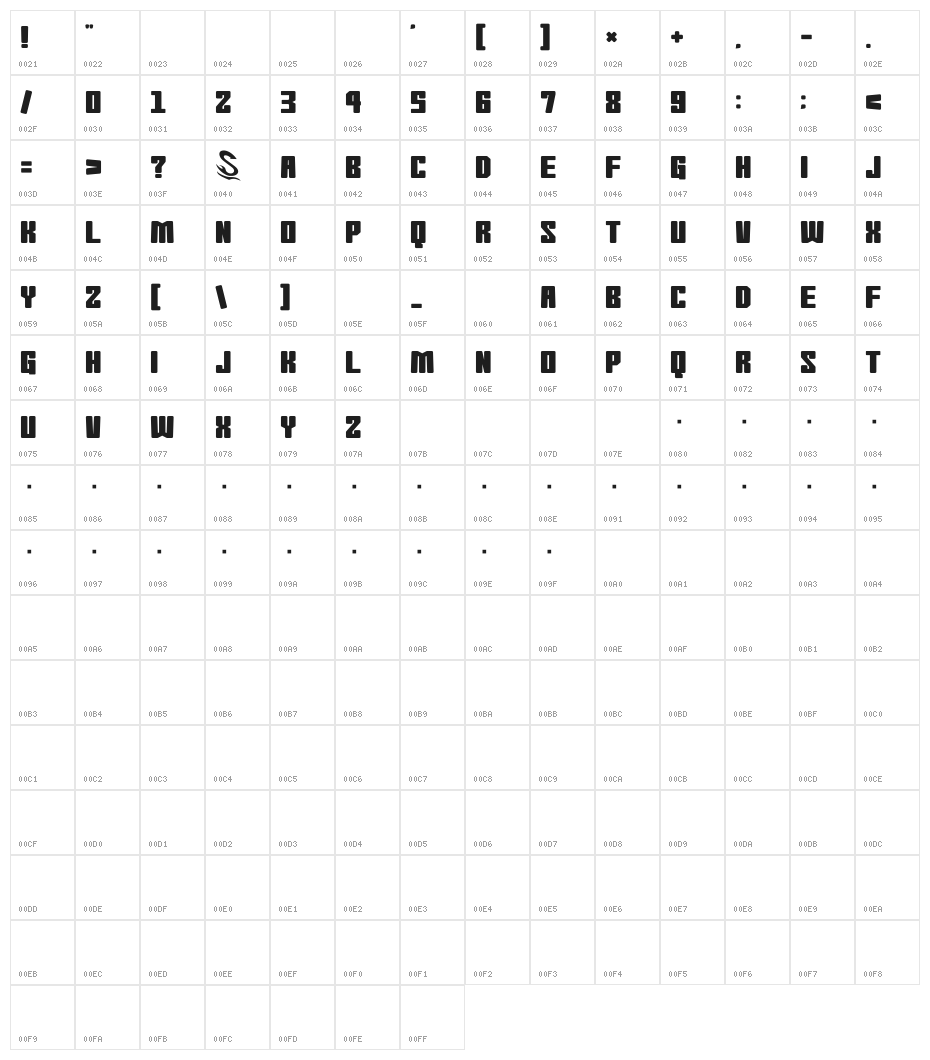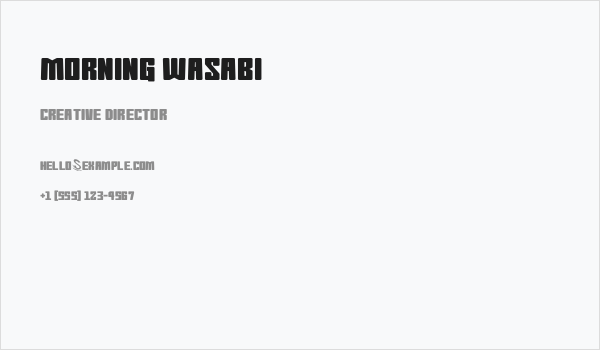
Morning Wasabi Font
Morning Wasabi Description
This font features bold, blocky characters with a strong geometric presence. The uppercase letters are uniform in height, with sharp angles and a consistent stroke width that gives a robust and impactful appearance. The lowercase letters maintain the same boldness, ensuring readability and a cohesive look. Numbers and special characters are designed to match the overall style, providing a seamless integration across all elements. The font's structure is reminiscent of industrial or urban themes, making it ideal for projects that require a strong visual statement.
Proposed ProjectsIdeal for branding, posters, headlines, and any design requiring a bold statement.